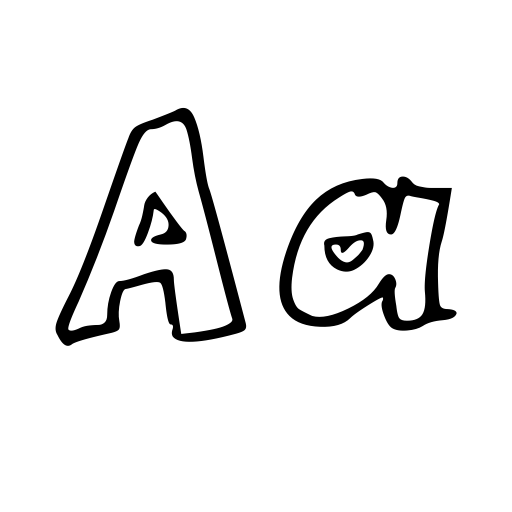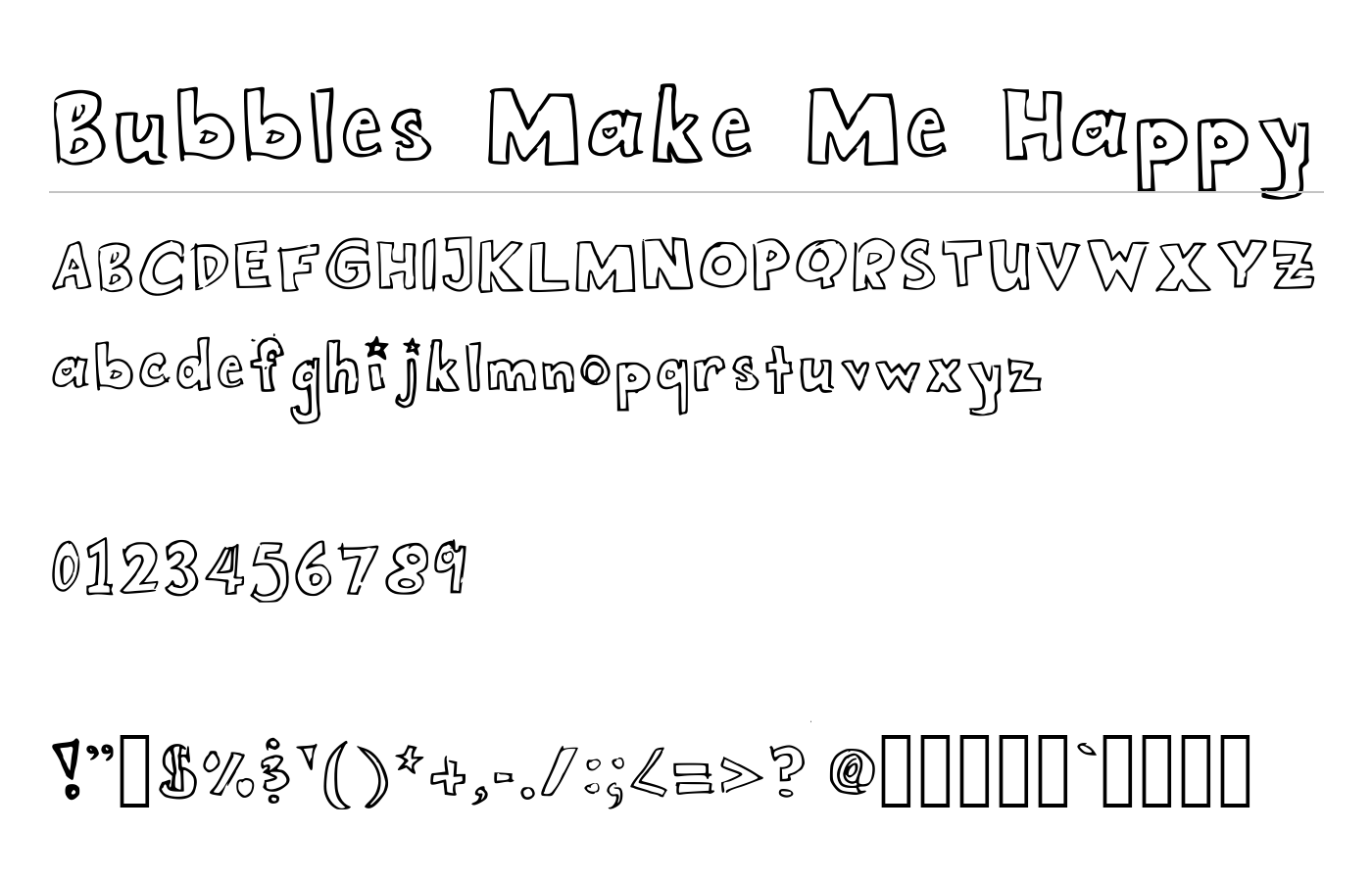
Bubbles Make Me Happy is a playful, hand-drawn sans serif font with an irregular, bubbly style that adds a fun and cheerful vibe to any project. Its casual, slightly uneven letterforms and whimsical details make it perfect for children's materials, informal invitations, or any design needing a lively and friendly touch. This font works best in headlines, logos, and creative packaging where a joyful and approachable personality is desired.
Bubbles Make Me Happy Font